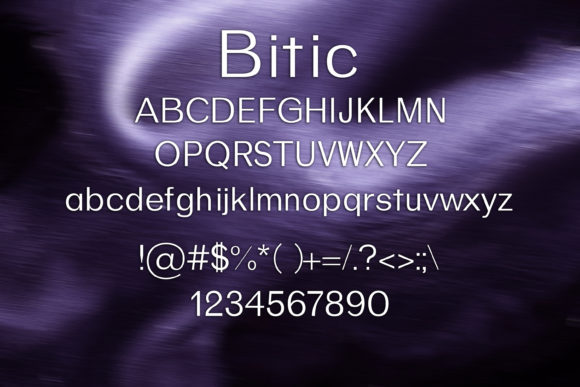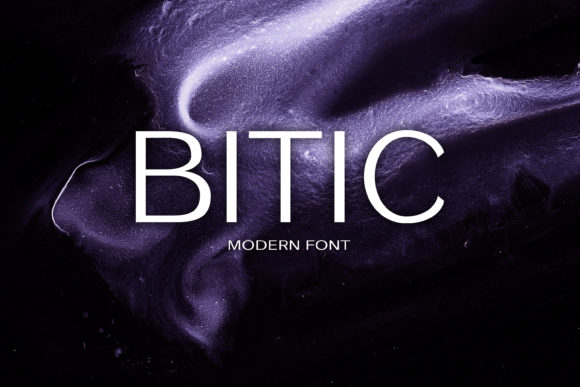
Introducing Bitic Font: A Modern Twist on Traditional Sign Painting
In the world of typography, fonts play a crucial role in conveying messages, expressing creativity, and setting the tone for a brand or design. For designers and crafters, finding the perfect font can be a daunting task, especially when looking for something that combines classic inspiration with modern flair. This is where Bitic Font comes in – a stunning sans serif font that draws inspiration from traditional sign painting, with a clean and minimal twist.
The Inspiration Behind Bitic Font
Traditional sign painting has been a cornerstone of visual communication for centuries. The art of hand-painting signs has evolved over time, influenced by various cultures and techniques. Bitic Font takes its cues from this rich heritage, reimagining the classic letterforms in a modern, sans serif context. The result is a font that pays homage to the past while feeling fresh and contemporary.
Clean and Minimal: The Perfect Blend
Bitic Font’s design is characterized by its clean lines, minimal ornamentation, and exceptional legibility. This makes it an ideal choice for modern designs that require a touch of sophistication and elegance. Whether you’re working on a branding project, website, or print material, Bitic Font’s versatility ensures it will adapt seamlessly to your creative vision.
Key Features of Bitic Font
- Unique Letterforms: Bitic Font boasts distinctive letterforms that are both nostalgic and modern. Each character has been carefully crafted to ensure a harmonious balance between traditional sign painting and contemporary design principles.
- Exceptional Legibility: The font’s clean design and optimal letter spacing make it highly legible, even at smaller sizes. This is particularly important for digital applications, where readability is paramount.
- Versatile: Bitic Font is suitable for a wide range of design applications, from headings and titles to body text. Its flexibility makes it an excellent addition to any designer’s font library.
- Easy to Pair: Bitic Font pairs well with a variety of other fonts, allowing designers to create stunning typographic combinations that elevate their designs.
Use Cases for Bitic Font
Bitic Font’s versatility makes it suitable for various design projects, including:
- Branding and Logo Design: Create a lasting impression with Bitic Font’s unique and memorable letterforms.
- Web Design: Enhance your website’s typography with a font that is both clean and engaging.
- Print Materials: From brochures to business cards, Bitic Font adds a touch of sophistication to any print project.
- Packaging Design: Stand out on store shelves with Bitic Font’s distinctive and eye-catching letterforms.
Bitic Font is a remarkable sans serif font that successfully blends traditional sign painting inspiration with modern design principles. Its clean, minimal aesthetic makes it perfect for designers and crafters seeking a versatile and elegant font for their projects. With its exceptional legibility, unique letterforms, and wide range of use cases, Bitic Font is sure to become a staple in any designer’s toolkit.